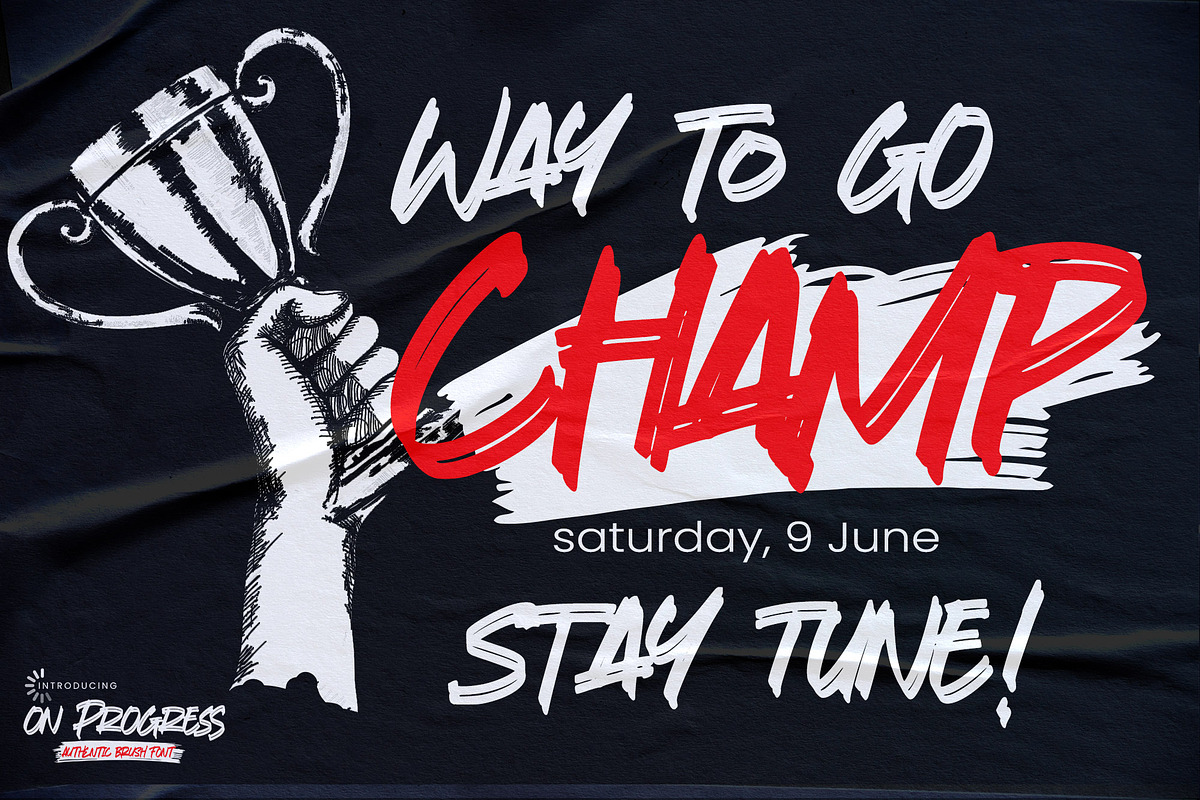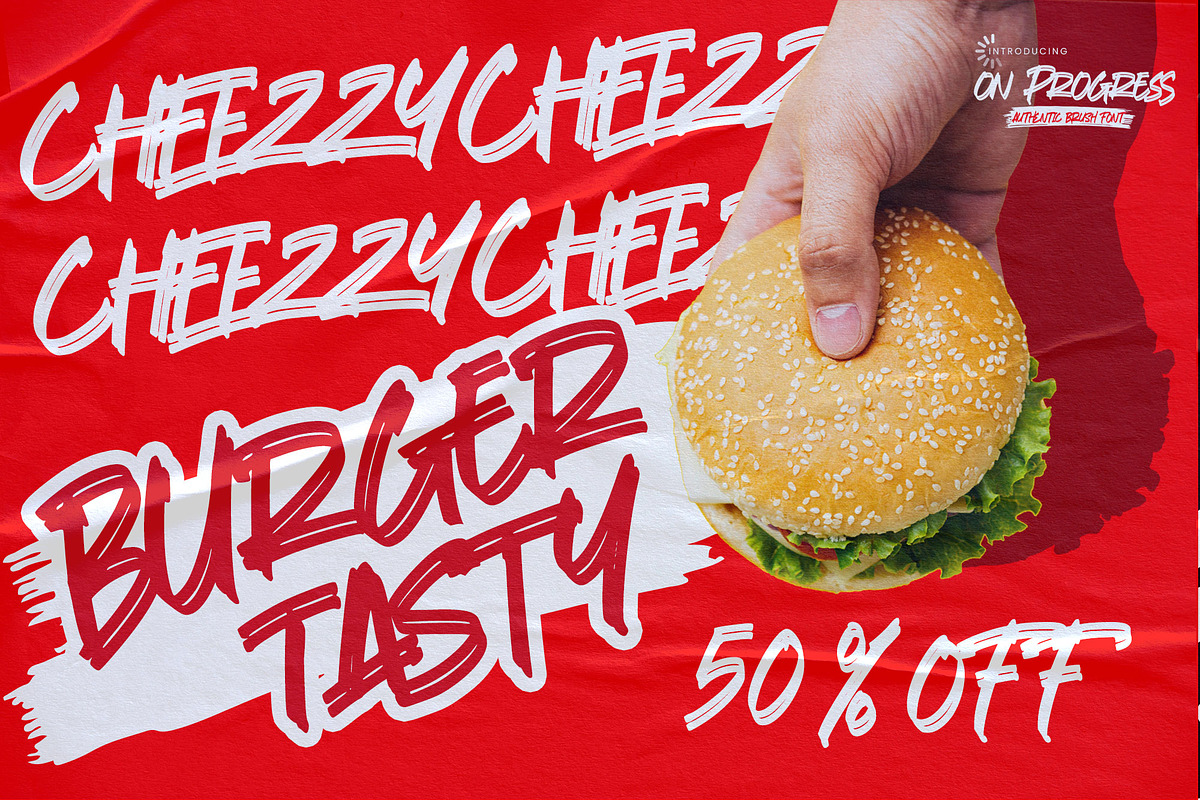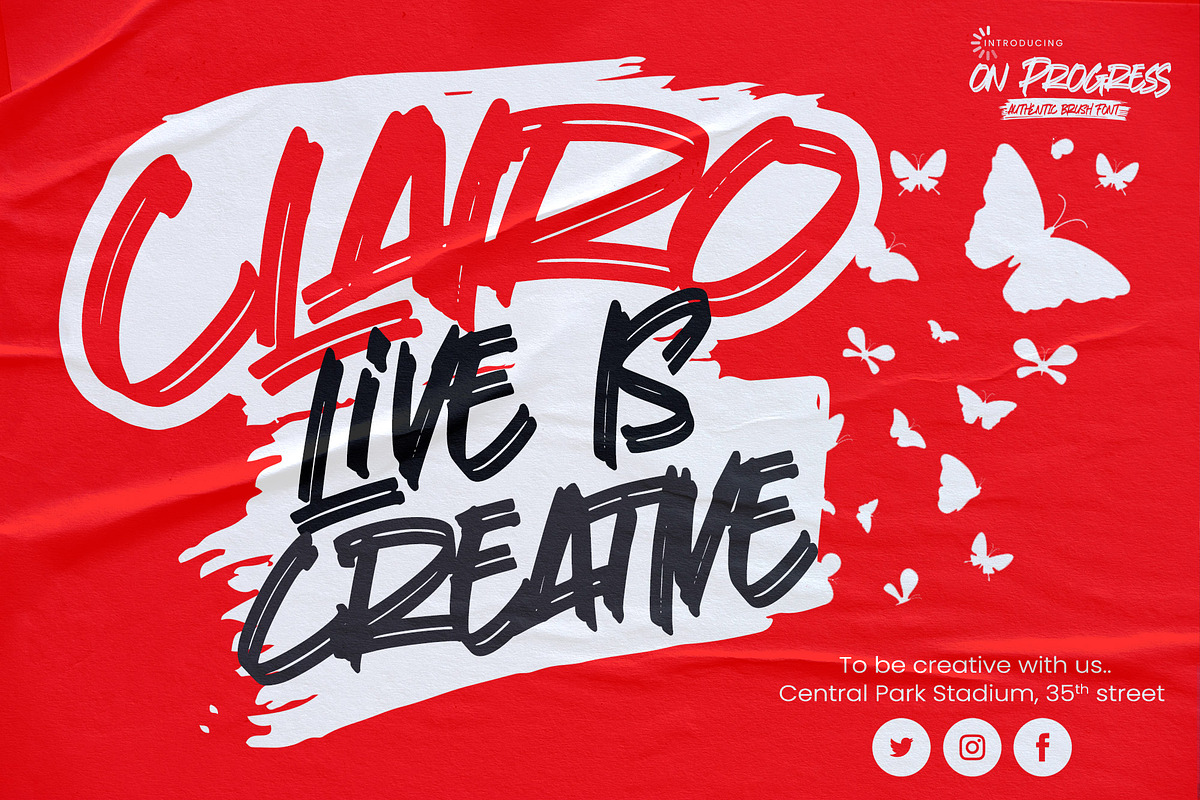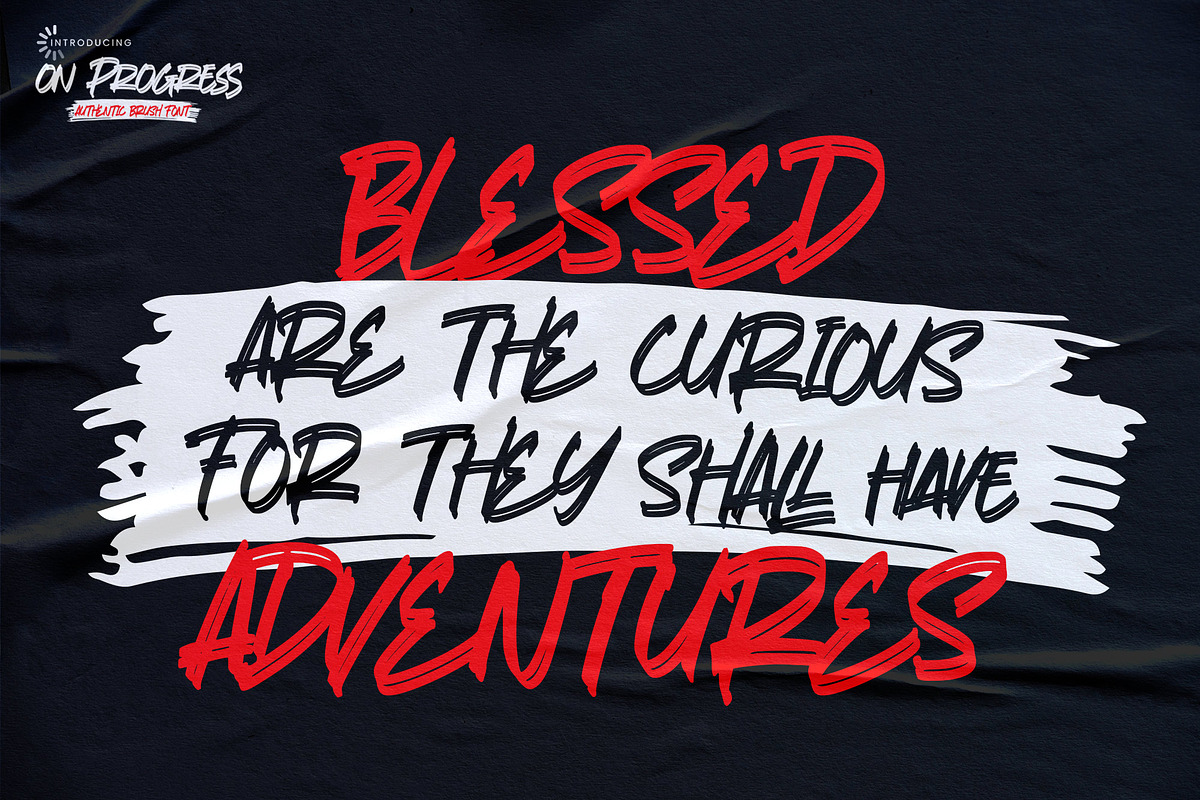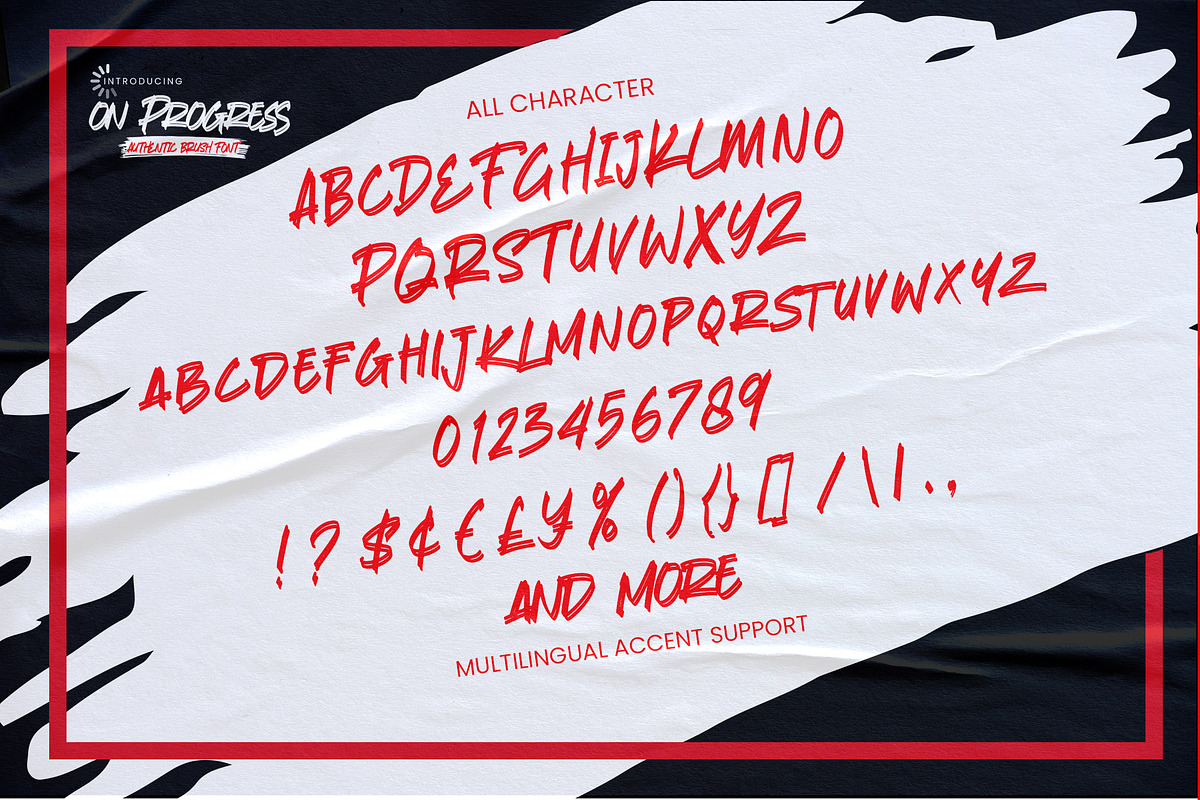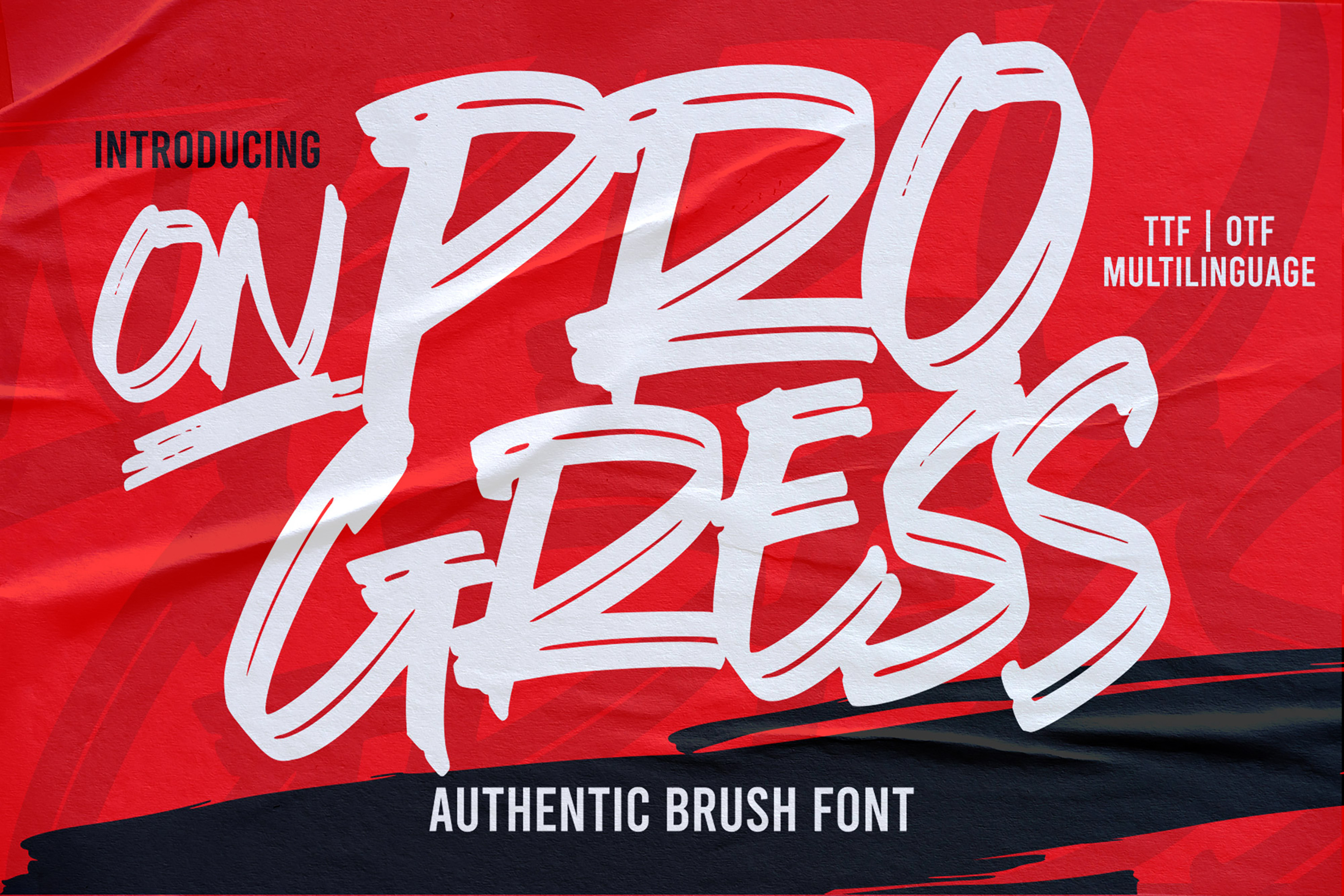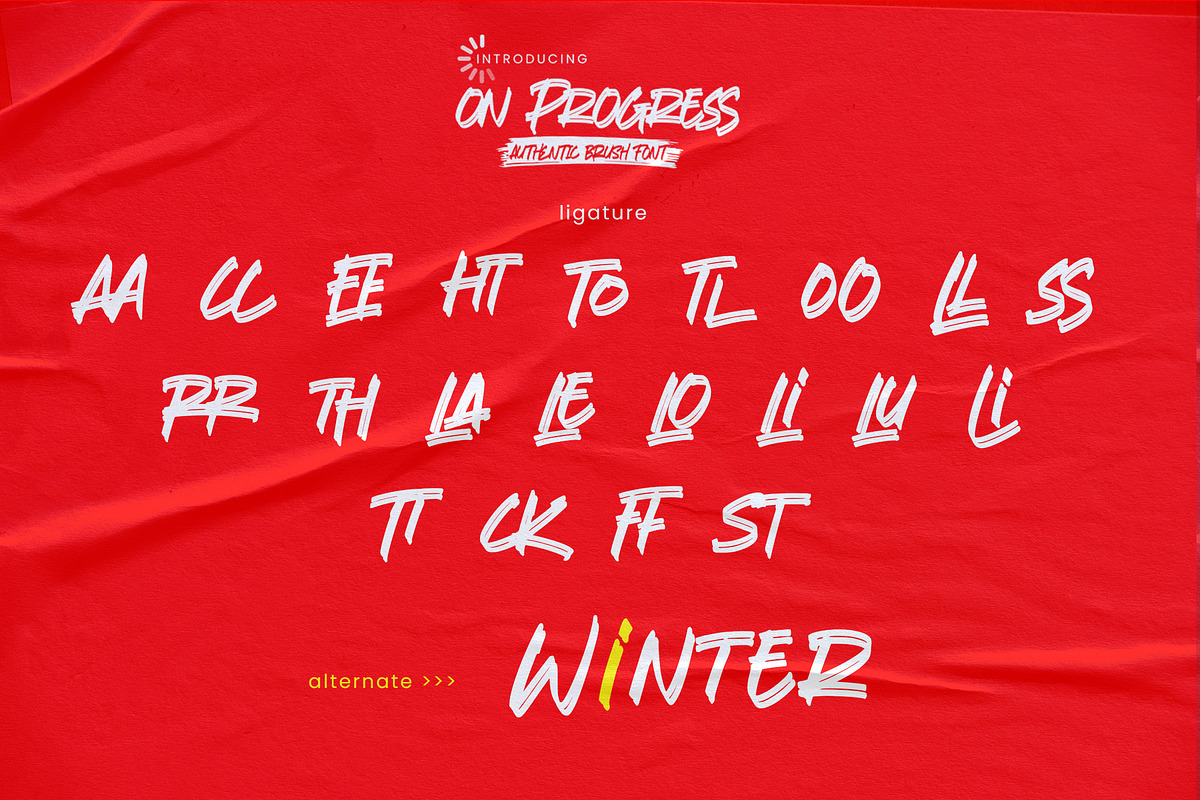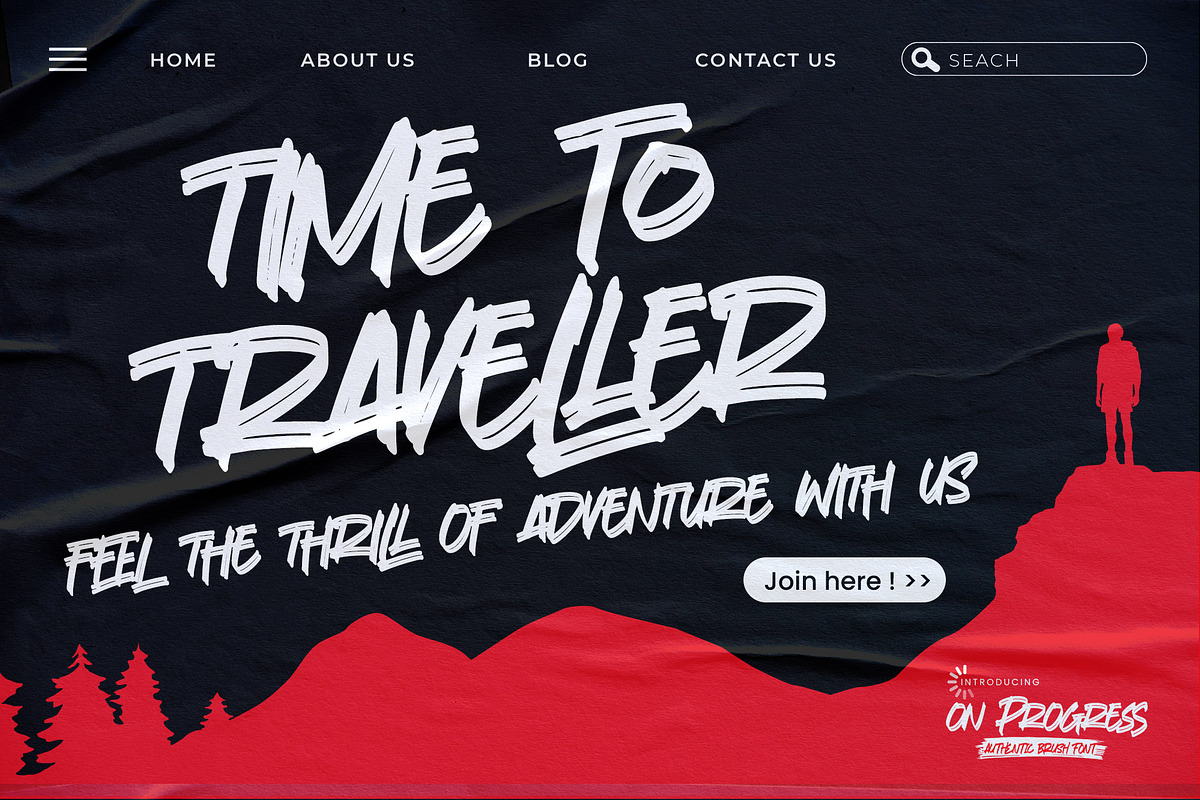
On Progress - Authentic Brush Font
Hello Everyone, introduce our new product font On Progress is Authentic Brush Font. font is a Strong Style and classy style with a clear style and dramatic movement this font is great for your next creative project such as logos, printed quotes, invitations, cards, product packaging, headers, Logotype, Letterhead, Poster, Design this font is great for your creative projects such as watermark on photography, and perfect for logos & branding, invitation,advertisements,product designs, stationery, wedding designs,label ,product packaging, special events or anything that need handwritting taste. That is why On Progress has charming, authentic and relaxed characteristic more natural look to your text with a more natural look to your text. You can activate Ligature OpenType panel.
- Ligatures glyphs
- Alternate glyphs